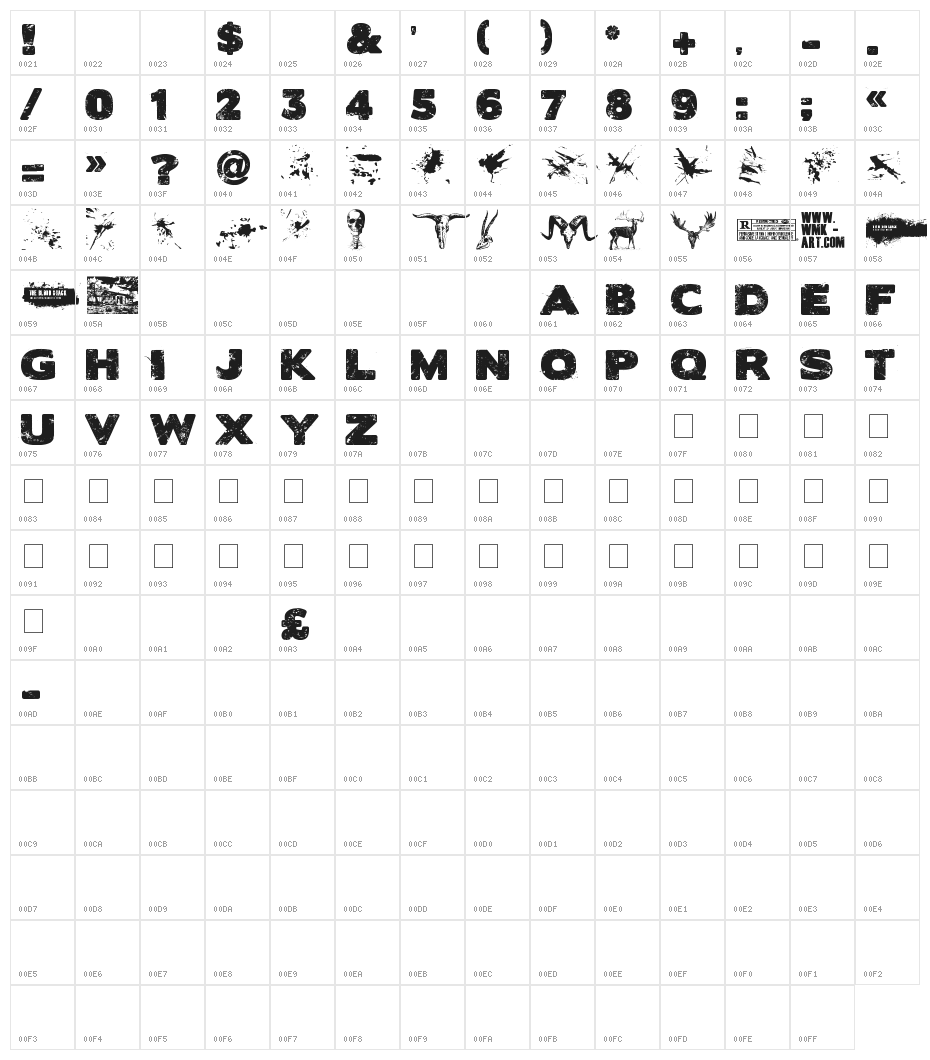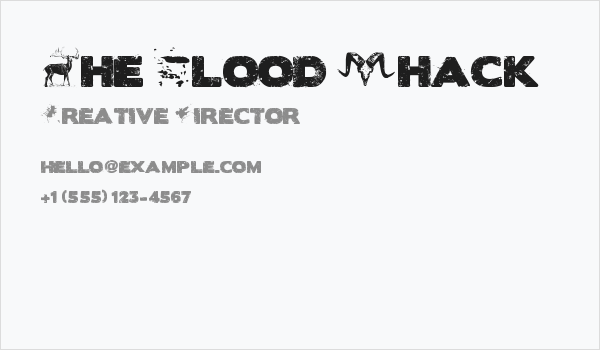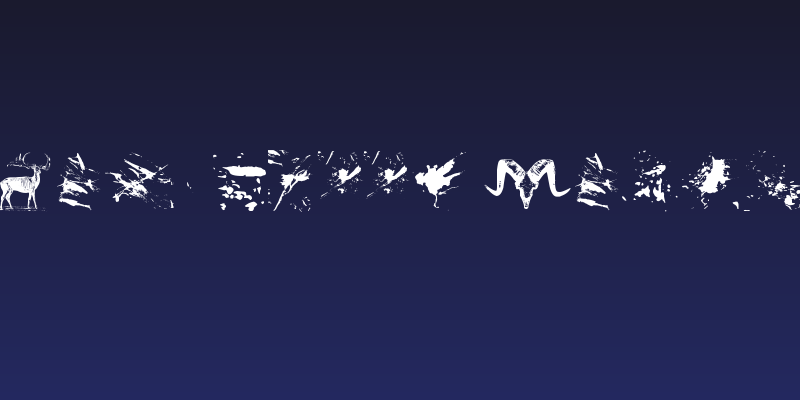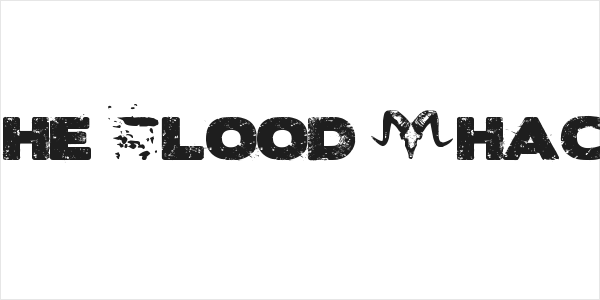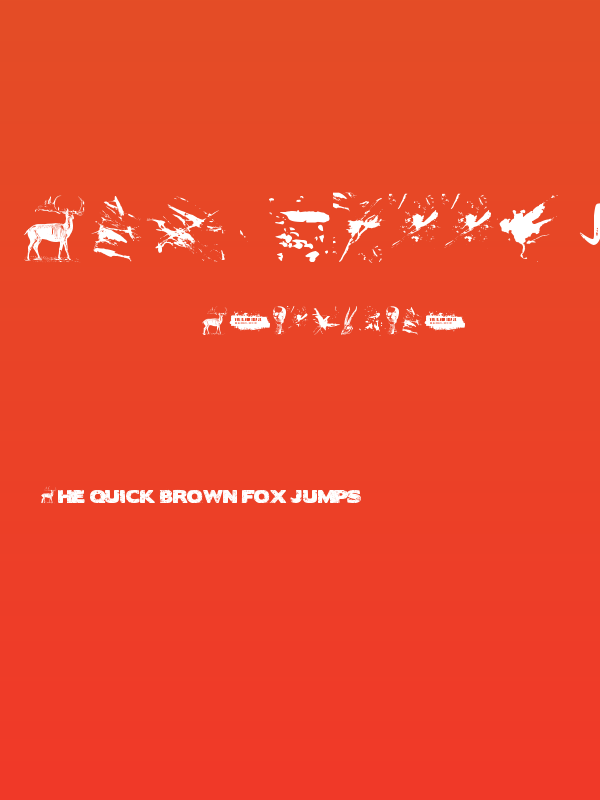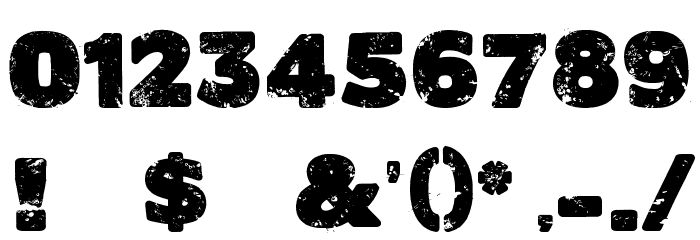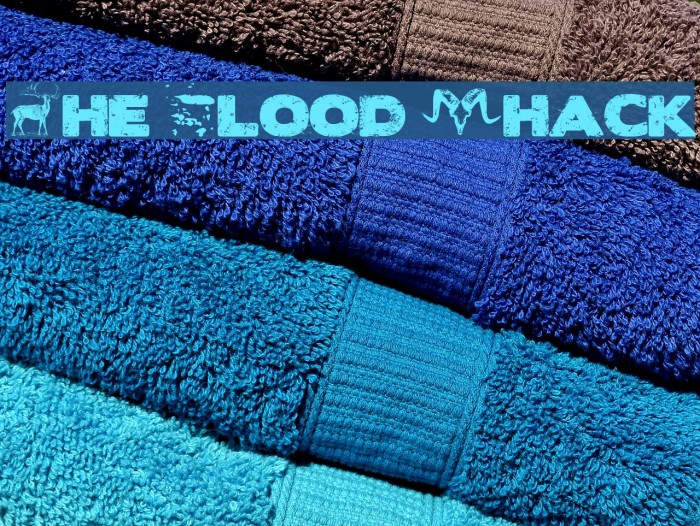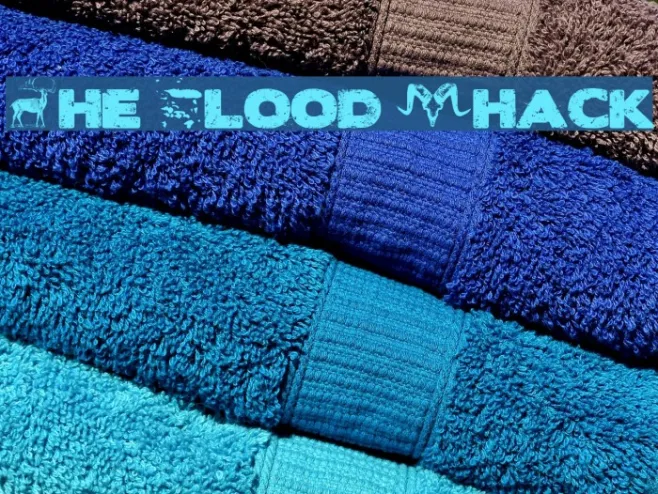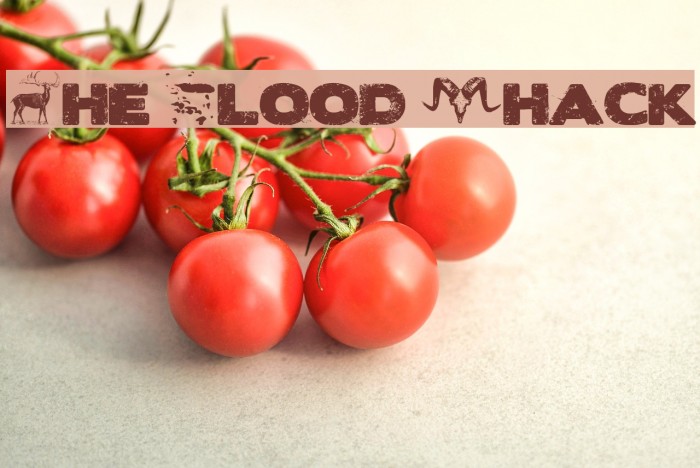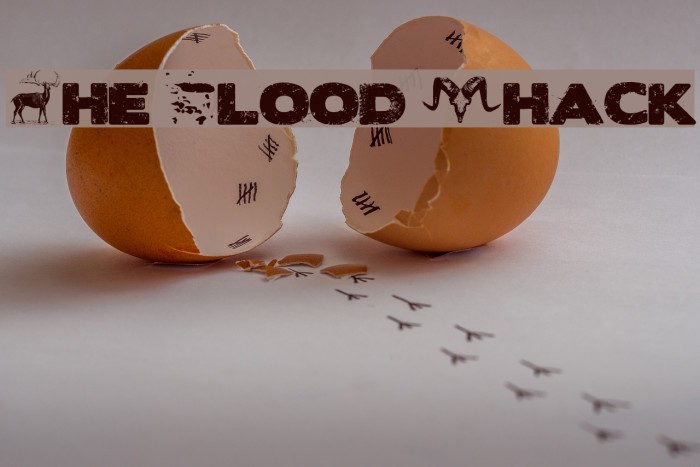
The Blood Shack Font
The Blood Shack Description
This font features a bold and distressed style, characterized by a rough, grunge texture that gives it a worn and rugged appearance. The uppercase letters are prominent and impactful, making them ideal for attention-grabbing designs. The numbers and special characters maintain the same distressed aesthetic, ensuring consistency across all characters. The font's unique texture suggests a sense of decay or erosion, which can evoke themes of horror, mystery, or rebellion. Its boldness ensures readability even with the distressed effect, making it suitable for impactful headlines or titles.
| Overall Style | Grunge, Distressed, Bold |
| Proposed Projects | Ideal for horror movie posters, edgy album covers, rebellious fashion branding, or any project needing a gritty, impactful look. |